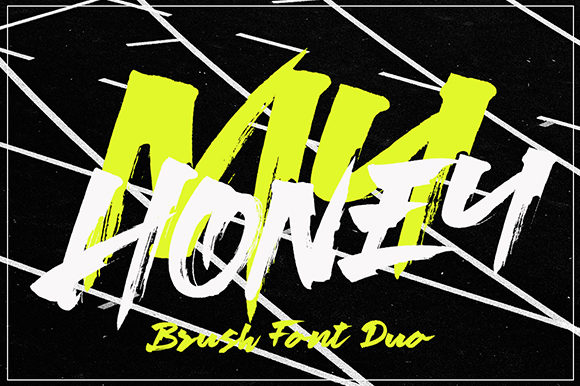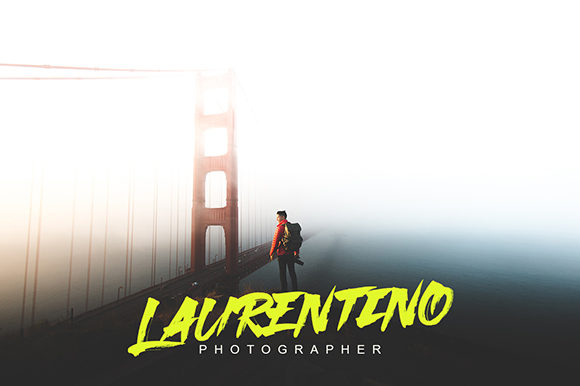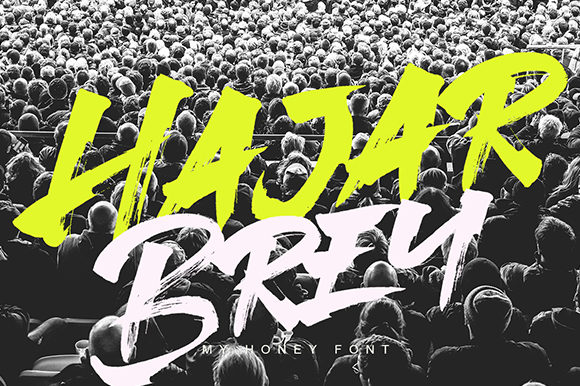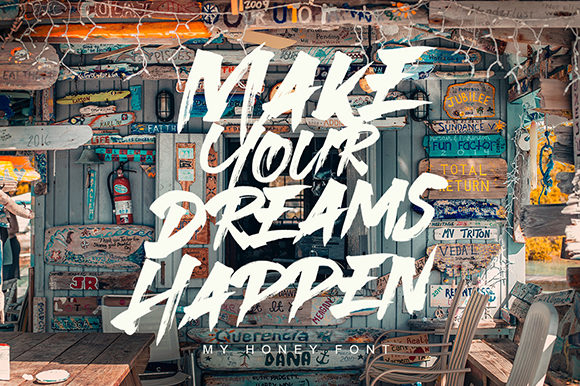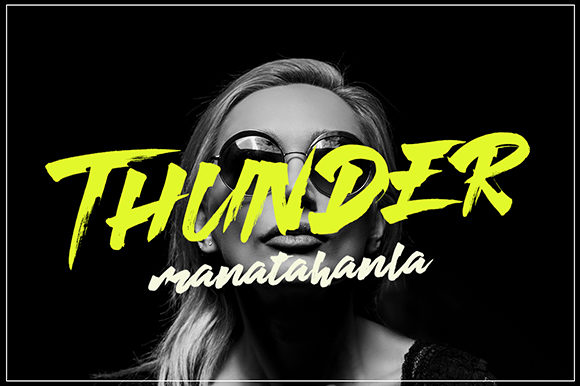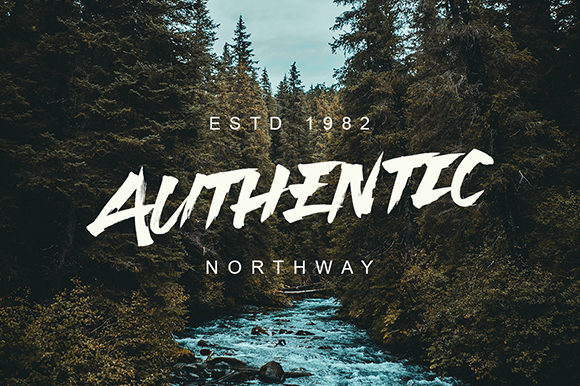
HomeScript FontsMy Honey Font Script Fonts My Honey Font FacebookXPinterestWhatsApp My Honey Font Poster 2 My Honey Font Poster 3 My Honey Font Poster 4 My Honey Font Poster 5 My Honey Font Poster 6 About My Honey Font My Honey is a modern brush font with a unique style. It will put an urban twist on any design idea! DOWNLOAD NOW People also explored Stronger Denilla Font Peach Font Kallyta Font Raidera Font Manners Font GSI Handwriting Font Henrietta Font Maize Yellow Bella Canvas 3001 Mockup 351 0 TagsMy Honey Font Previous articleMottura FontNext articleResmhagot Font LEAVE A REPLY Cancel reply Comment: Please enter your comment! Name:* Please enter your name here Email:* You have entered an incorrect email address! Please enter your email address here Website: Save my name, email, and website in this browser for the next time I comment. Personal Use Free Dream Orphans Personal Use Free Read more about this font Roland Personal Use Free Read more about this font Daisy Script Personal Use Free Read more about this font Unicorn Kids Personal Use Free Read more about this font BLOG Modern Sans-Serif Fonts That Brands Love in 2025 In 2025, modern sans-serif fonts remain a top choice for brands looking to project clarity, professionalism, and... Elegant Wedding Invitation Fonts – Handwritten & Script Fonts Best Fonts for T-Shirt Design – Top 2025 Picks Free vs Paid Fonts: Why Investing in Premium Fonts Is Worth It